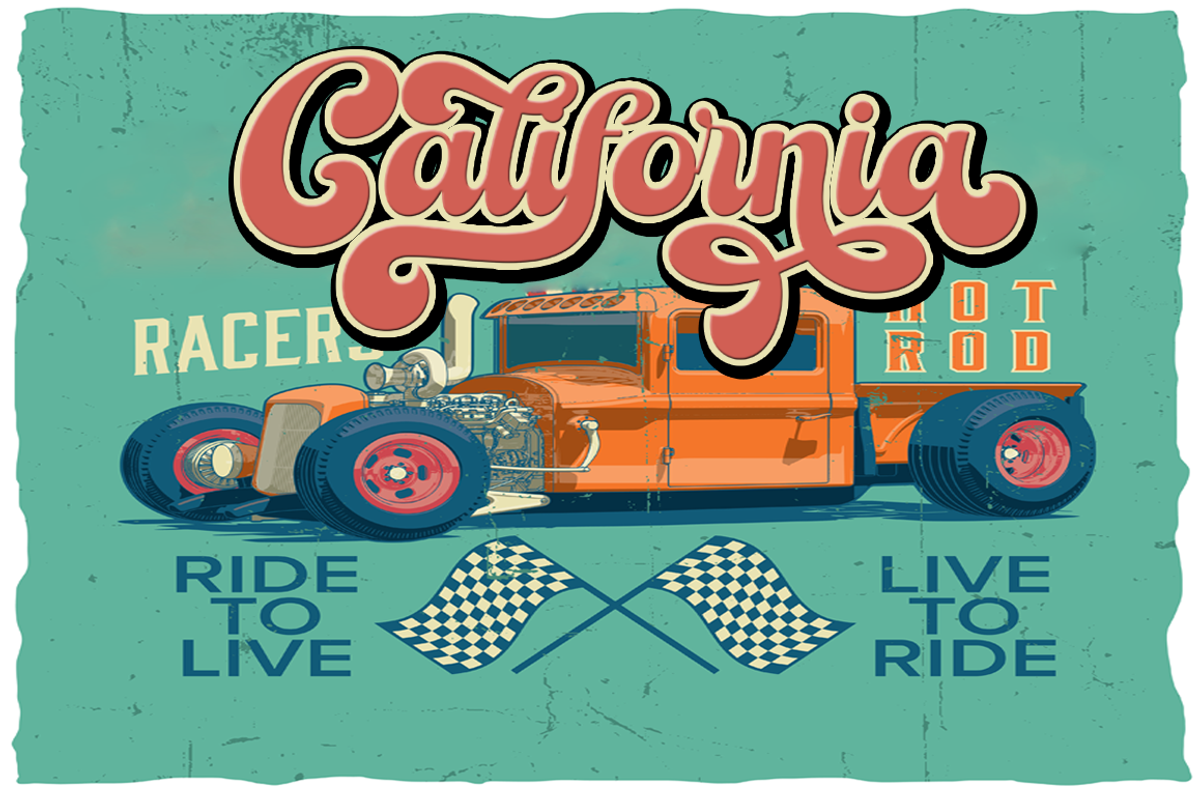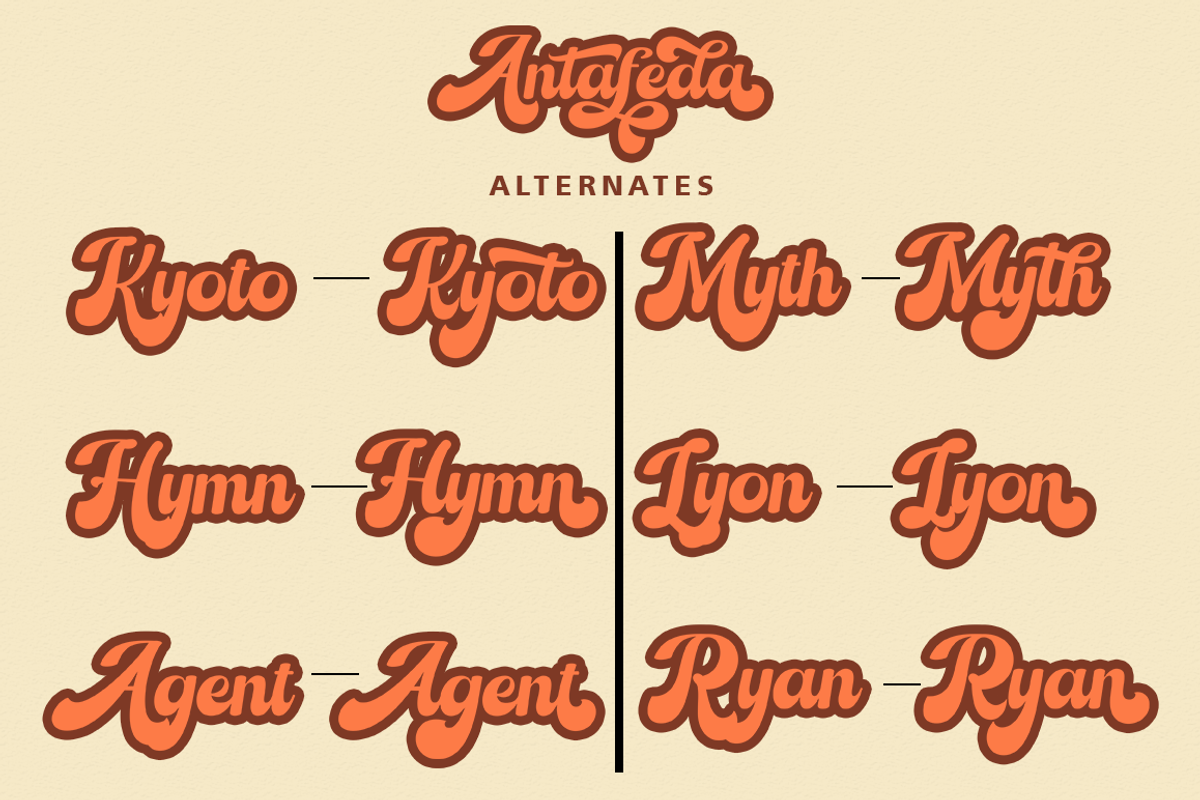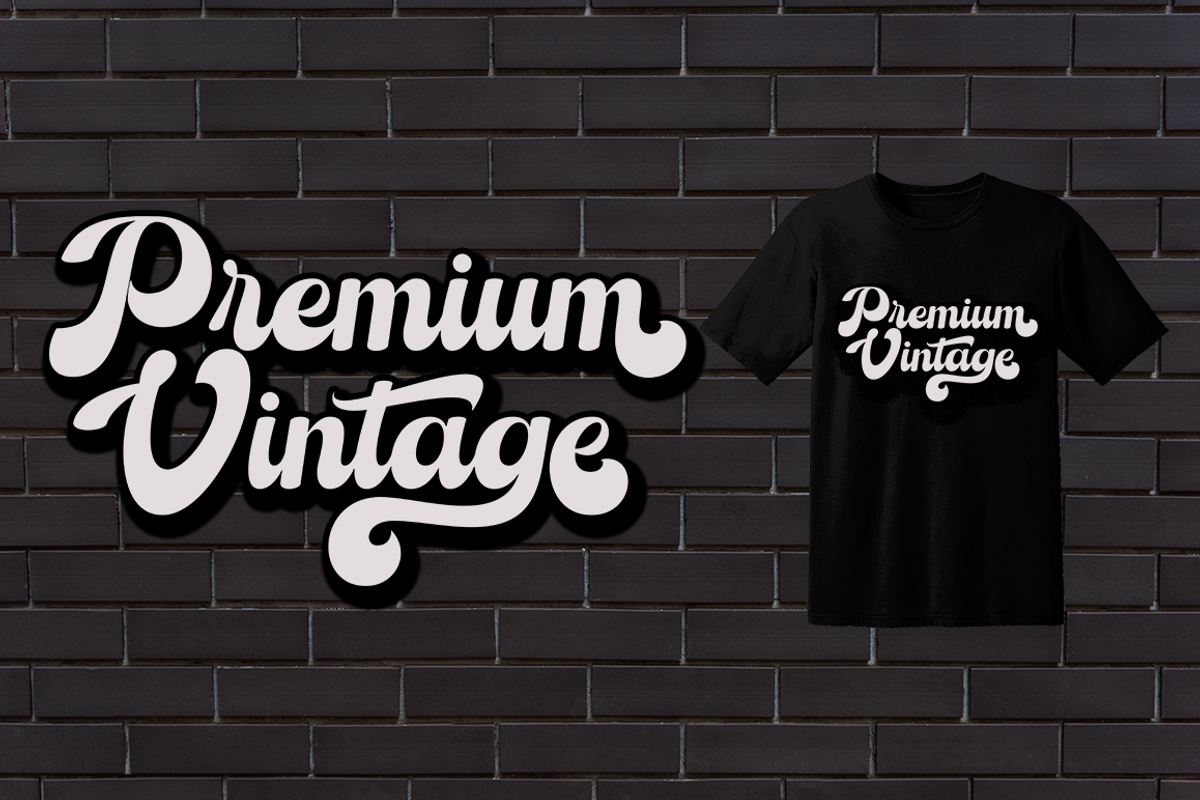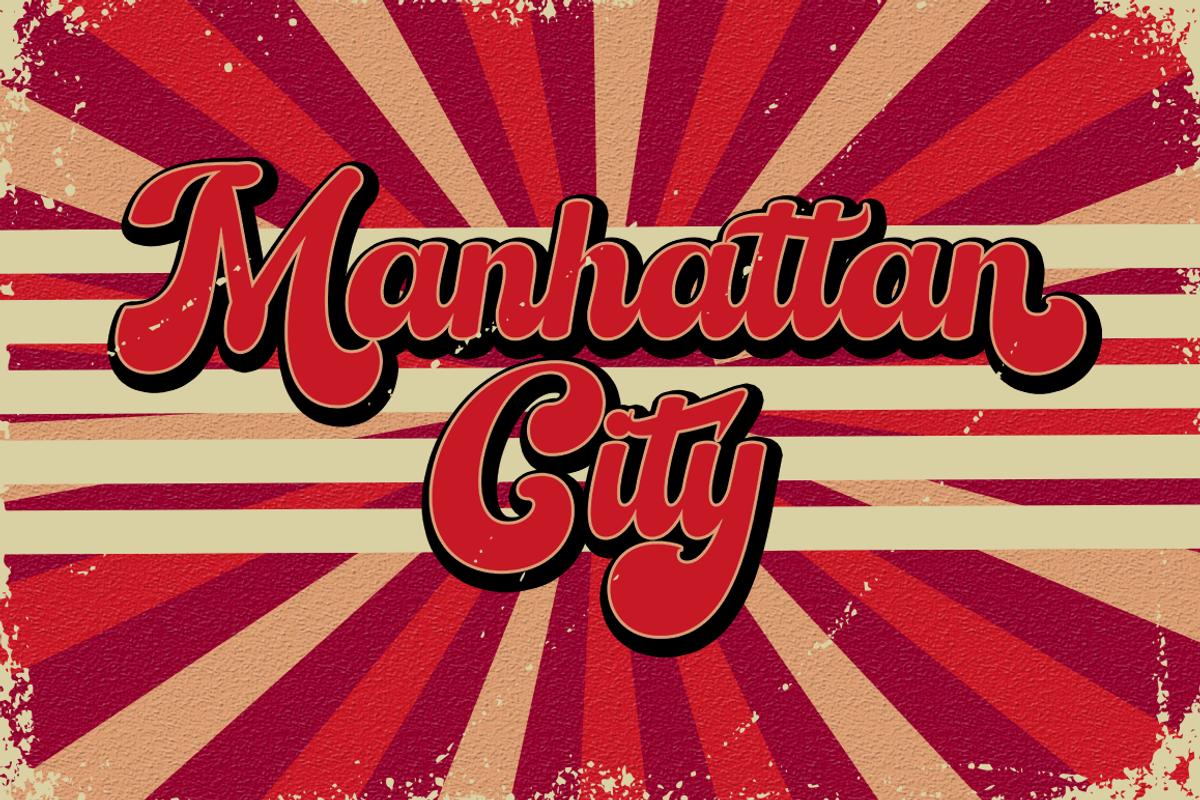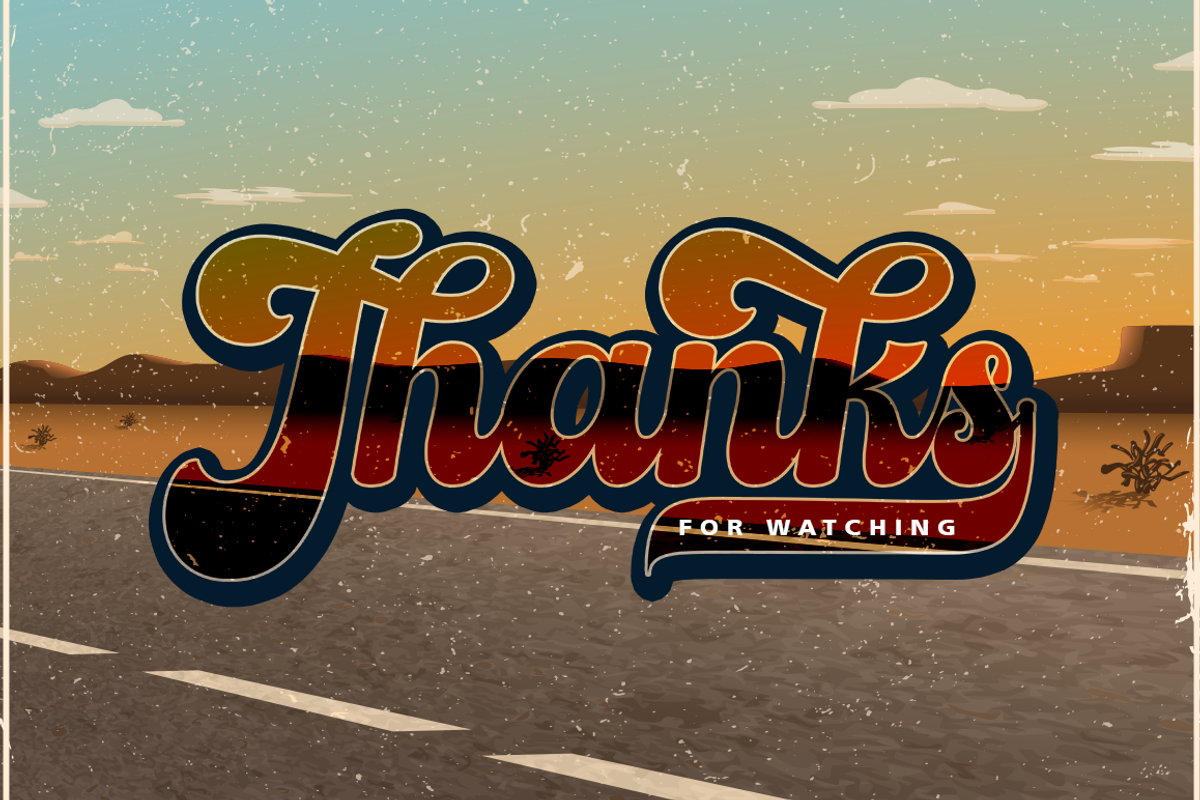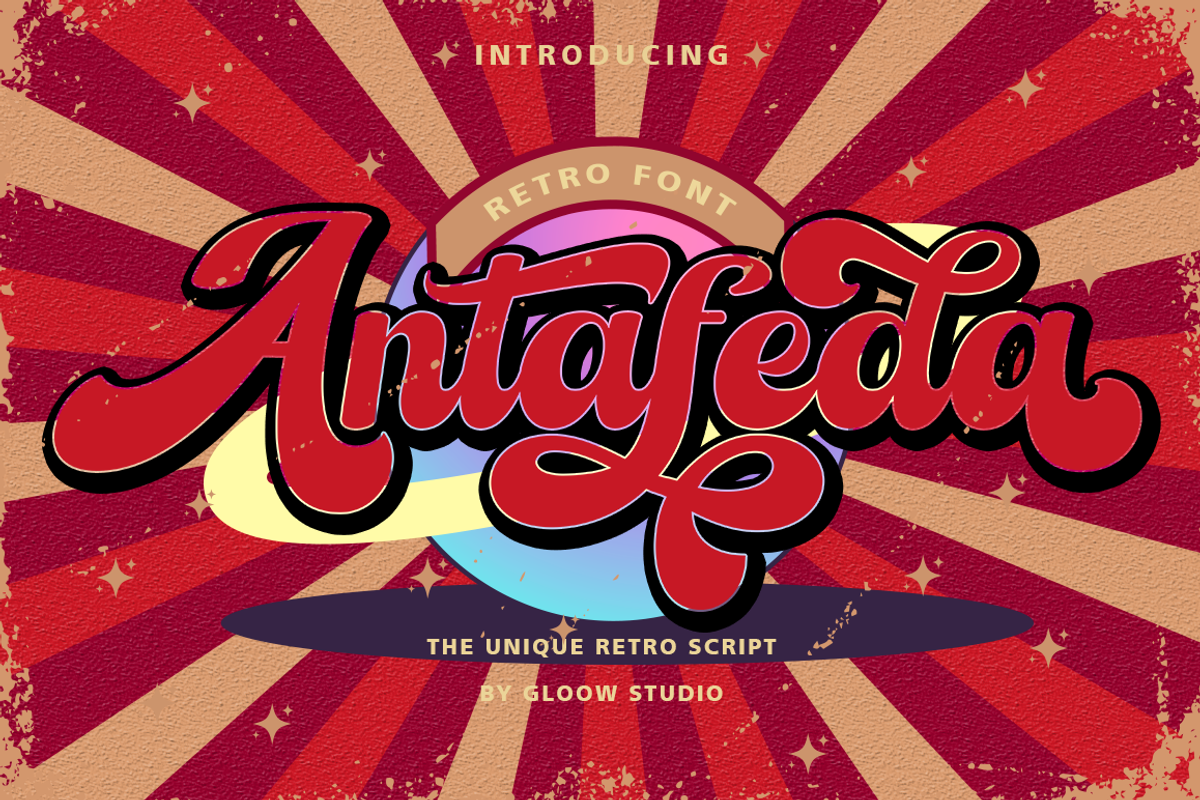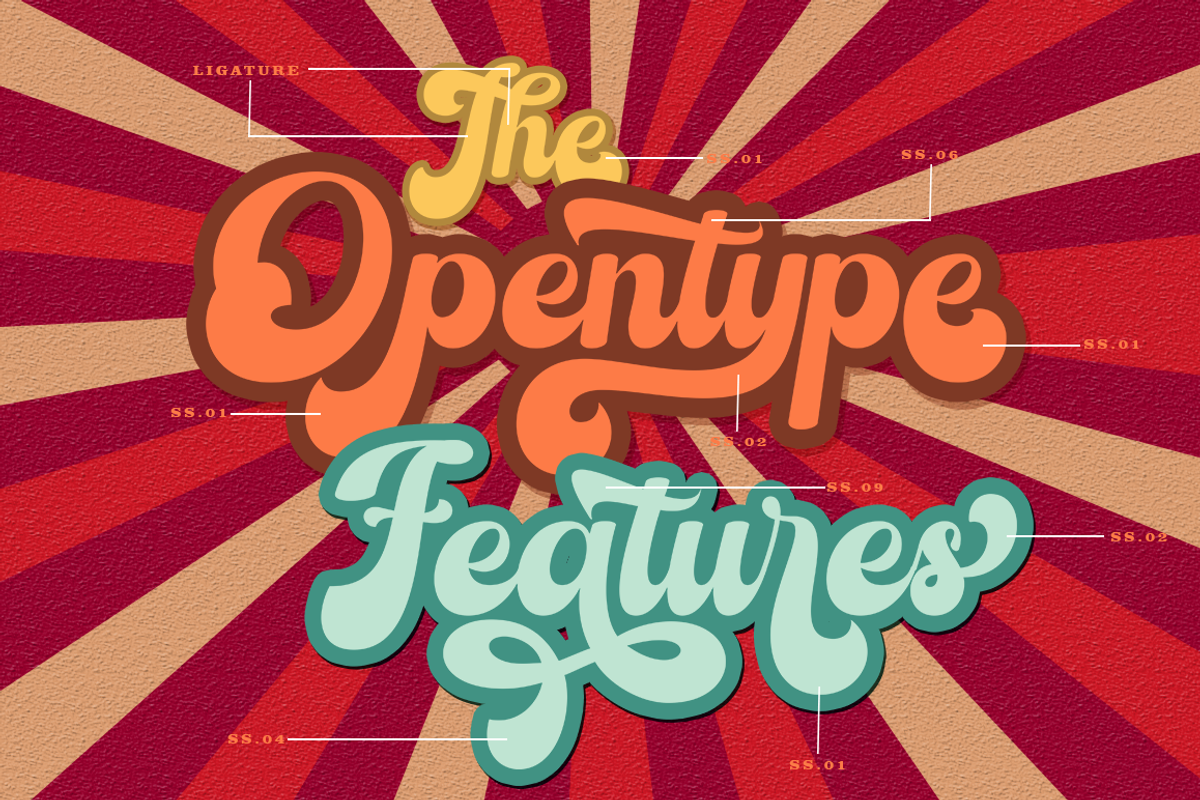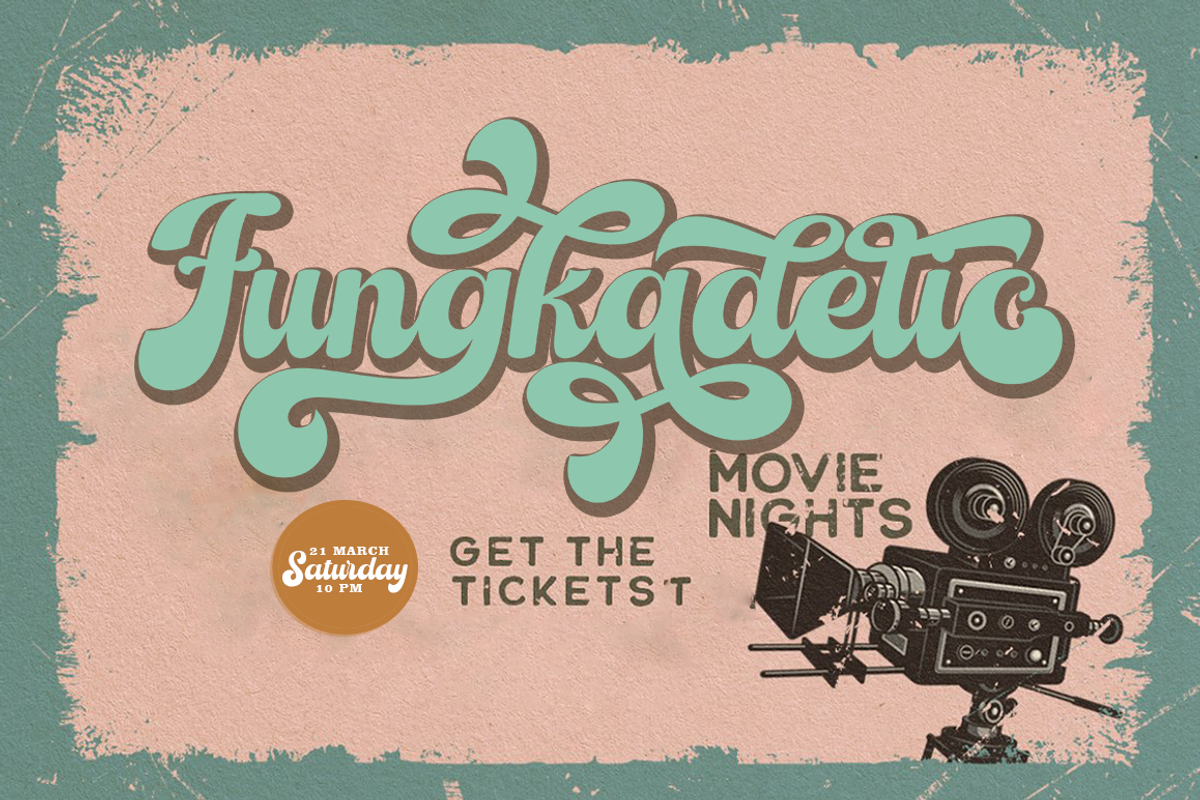
Antafeda
Antafeda is our another retro script typeface. Use this typeface and you will make a retro design with ease! Combined your design with dozens of stylistic alternates and elegant swashes which is included in this typeface, this retro typeface is really perfect for logo design, t-shirt, vintage and retro badge, vintage quotes, branding, packaging, etc.
Antafeda features:
A full set of upper & lowercase characters
Up to 80 Stylistic Alternates with Swashes and Ligatures!
OpenType Features